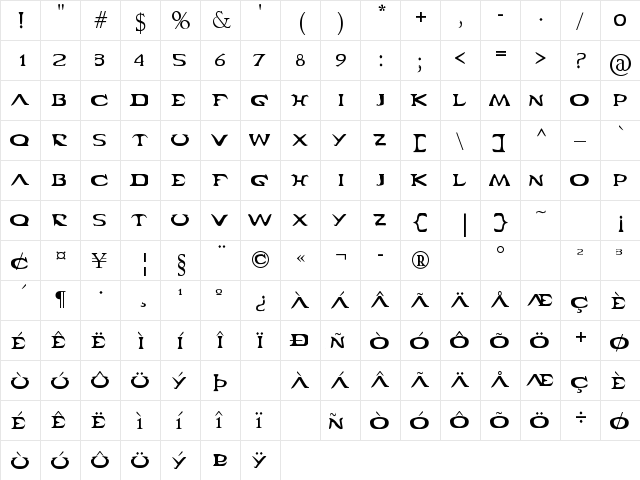
Cabal Regular Font Preview
Cabal Regular
Cabal Regular Font Details
| Designer | Biffe |
Design Context for Cabal Typeface
Cabal is a composed and adaptable typeface that performs quietly and consistently across a wide range of design contexts.